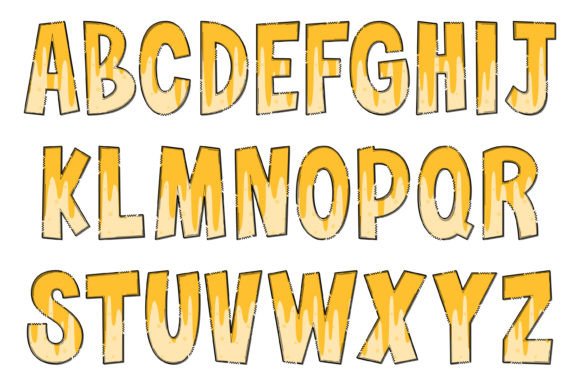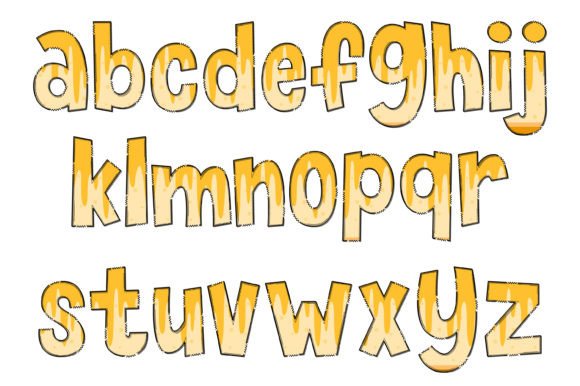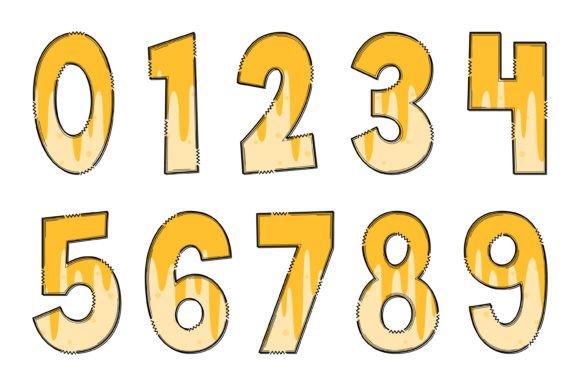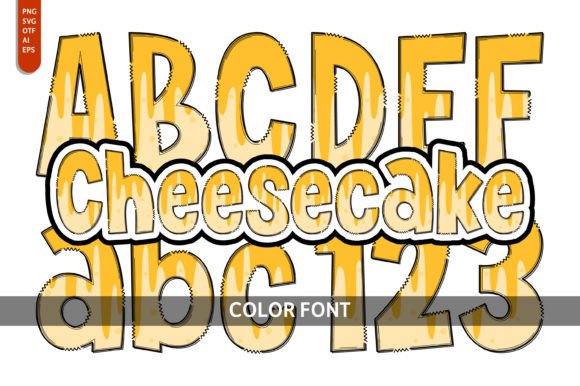
Introducing Cheesecake Font: The Perfect Addition to Your Design Collection
Are you a designer or crafter looking for a font that can add a playful and artistic touch to your projects? Look no further than Cheesecake Font! This delightful font is perfect for a variety of designs, from children’s books to posters, invitations, and greeting cards. In this article, we’ll explore the features and benefits of Cheesecake Font, as well as provide tips on how to use it in your designs.
What is Cheesecake Font?
Cheesecake Font is a unique and whimsical font that is sure to capture the attention of your audience. Its playful and artistic feel makes it an ideal choice for designs that require a touch of fun and personality. Whether you’re creating a children’s book, a poster, or an invitation, Cheesecake Font is the perfect addition to your design collection.
Characteristics of Cheesecake Font
Use Cases for Cheesecake Font
So, what can you use Cheesecake Font for? The possibilities are endless! Here are a few ideas to get you started:
- Children’s Books: Cheesecake Font is perfect for children’s books, as it’s whimsical, colorful, and easy to read. It creates an engaging reading experience for young audiences and adds a touch of fun to your story.
- Posters: Add a playful touch to your posters with Cheesecake Font. Whether you’re promoting a event, a product, or a service, this font is sure to grab attention.
- Invitations: Make your invitations stand out with Cheesecake Font. It’s perfect for birthday parties, baby showers, and other celebrations.
- Greeting Cards: Add a personal touch to your greeting cards with Cheesecake Font. It’s ideal for birthdays, holidays, and other special occasions.
Tips for Using Cheesecake Font
Here are a few tips to keep in mind when using Cheesecake Font:
- Experiment with Colors: Cheesecake Font is a color font, so don’t be afraid to experiment with different colors and combinations.
- Play with Size: Cheesecake Font looks great in a variety of sizes, from small and delicate to large and bold.
- Mix and Match: Don’t be afraid to mix and match Cheesecake Font with other fonts to create a unique and interesting design.